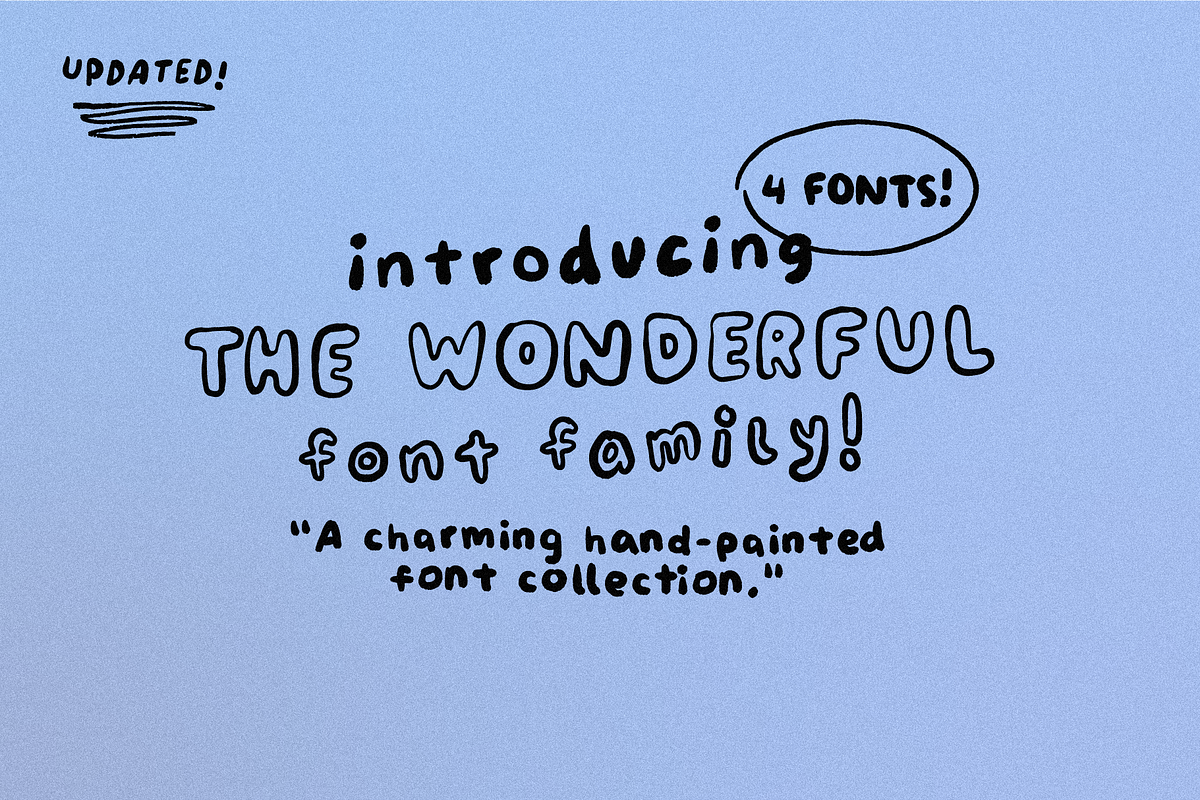
Wonderful! 4 Fonts! Handwriting Set Free Download is a versatile collection of four beautiful handwriting-inspired fonts that bring a personal, creative touch to your designs. Perfect for logos, invitations, branding, and more, this set includes a variety of handwritten styles, from elegant scripts to casual brush strokes. With these fonts, you can create projects that feel authentic, warm, and unique.